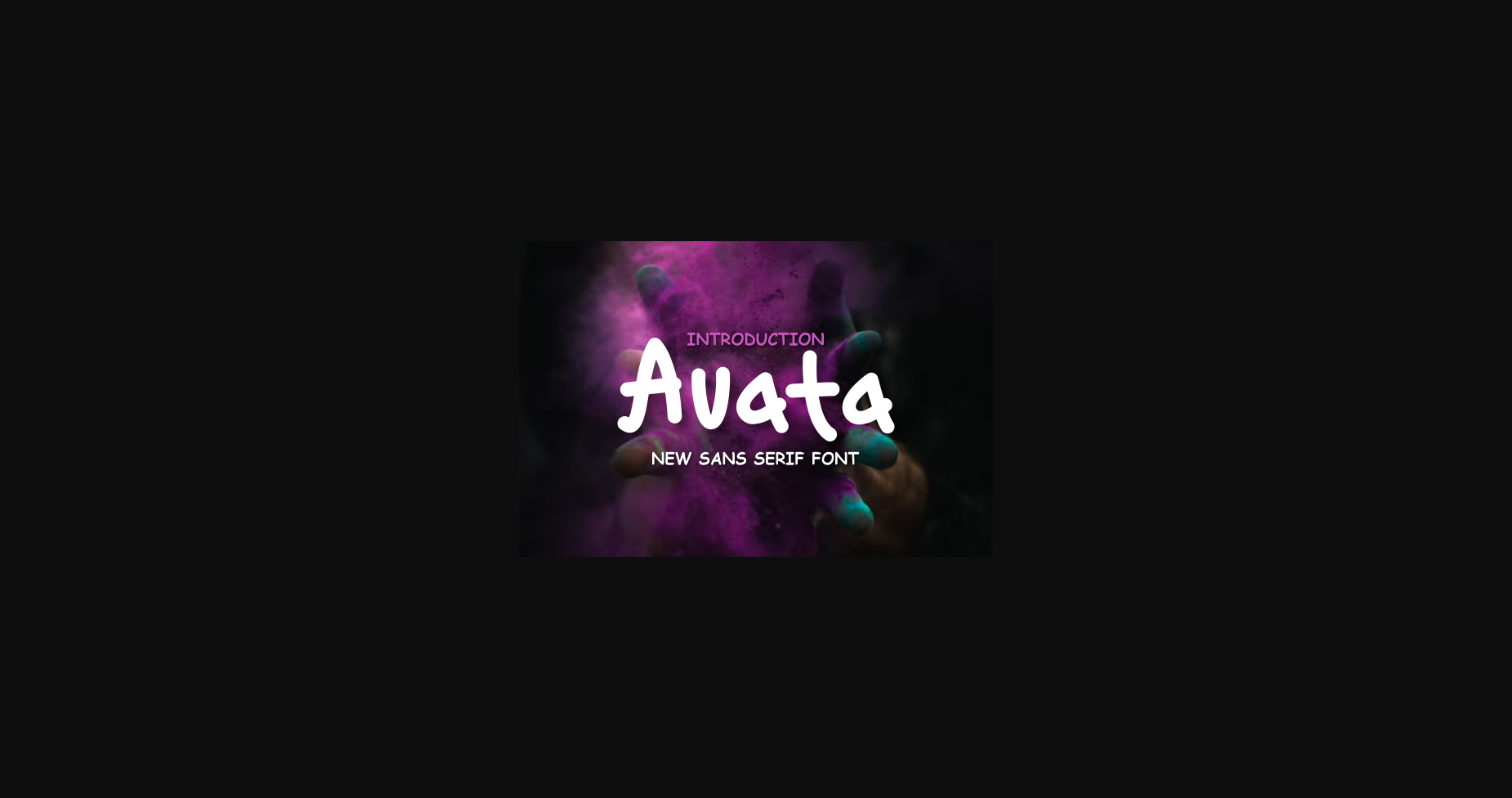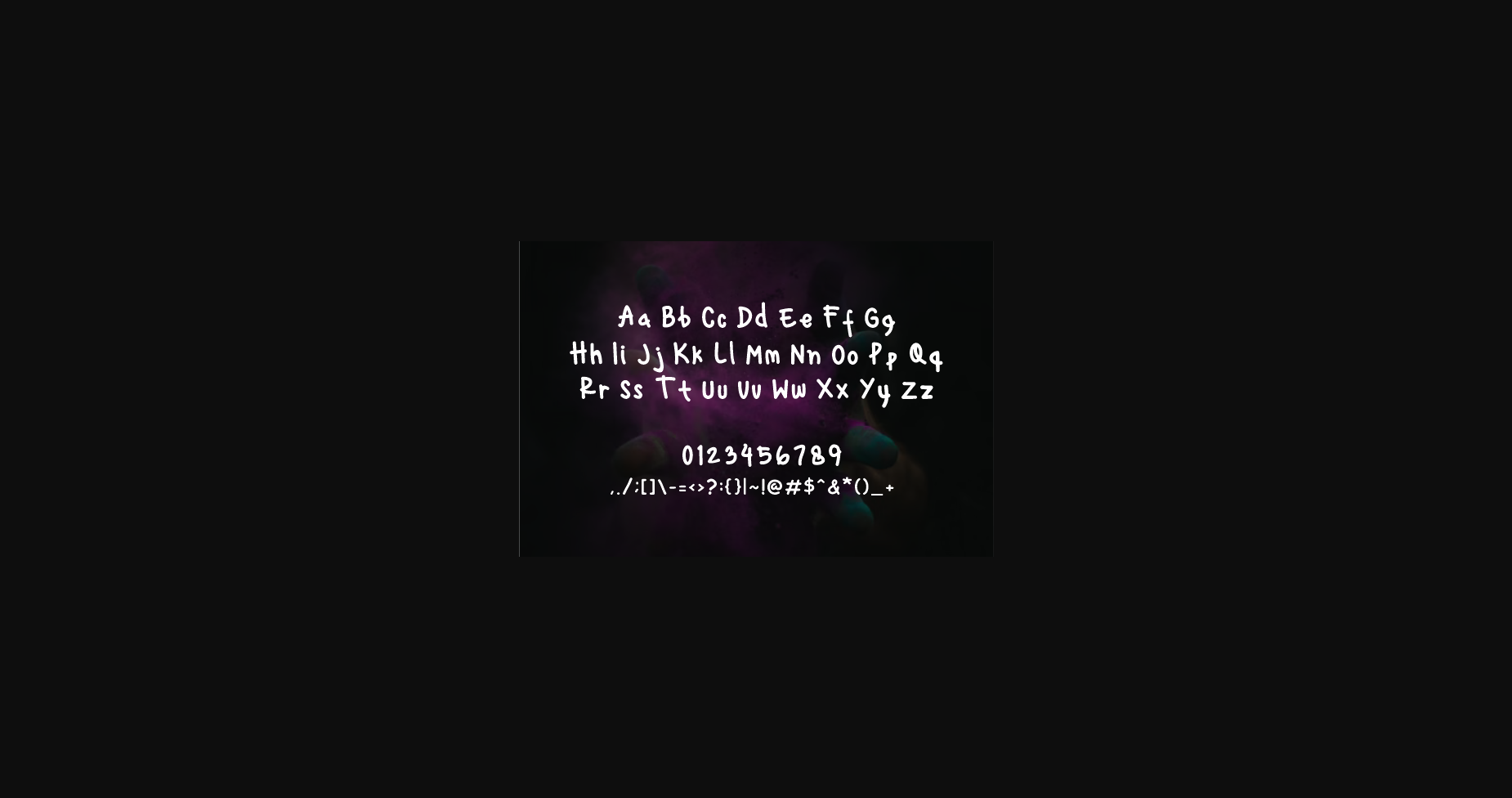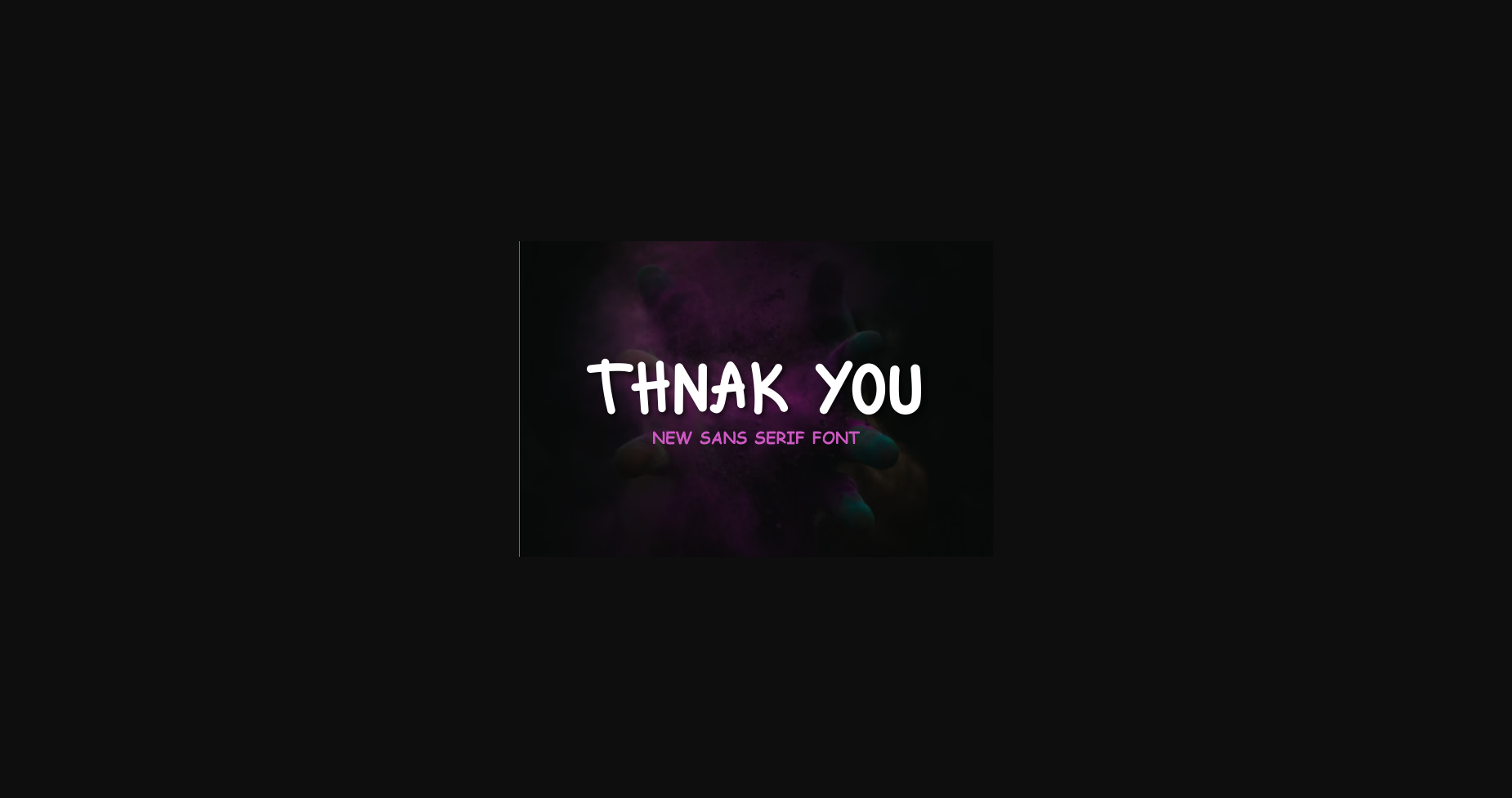
Avata Font
About Avata Font
The Avata is an unique Sans Serif font with a carved style. The unique characteristics make it suitable for various purposes such as quotes, t-shirt designs, flyers, YouTube channels, labels, logos, and much more!